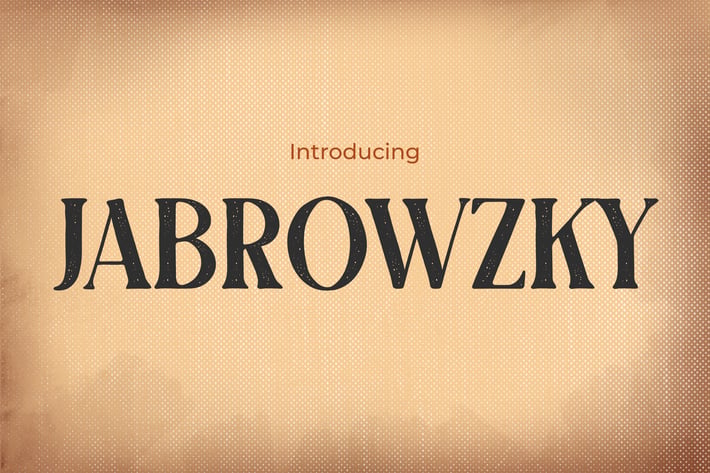
Jabrowzky - A Nostalgic Retro Font
Jabrowzky
Bring your editorial ideas to life with the JABROWZKY display typeface—a vintage-inspired font that fuses long-tail typographic charm with high usability. With high-contrast strokes, extended proportions, and classic serif touches, JABROWZKY radiates sophistication and legacy. The crisp vertical stress and sturdy stem weight give it an authoritative tone perfect for classic branding. Whether it's a literary magazine or high-end packaging, this expressive, slightly condensed serif speaks in a timeless voice—elegant but not shy.
JABROWZKY is your go-to typeface when you need to evoke tradition, intellect, and bold storytelling. It works exceptionally well for editorial layouts, heritage branding, book titles, fashion labels, and even café logos that need that literary touch. If your design goal is to stand out with cultured charisma, this font delivers presence and poise without overpowering your message.
Key Features :
Strong Serif Form, Built for Impact
- Elegant contrast and refined weight for a polished feel
- Works across both print and digital formats with grace
Designed to Impress Across Contexts
- Perfect for high-end branding, packaging, magazine mastheads, and signage
- Conveys legacy and character in one bold voice
Vintage Flair, Modern Utility
- Editorial-ready styling with a designer’s practicality
- Structured for hierarchy and readability
Looking to inject a story-driven aesthetic into your design? JABROWZKY brings heritage and clarity together with a modern edge. Make your next project unforgettable—start using JABROWZKY today and speak with visual conviction.